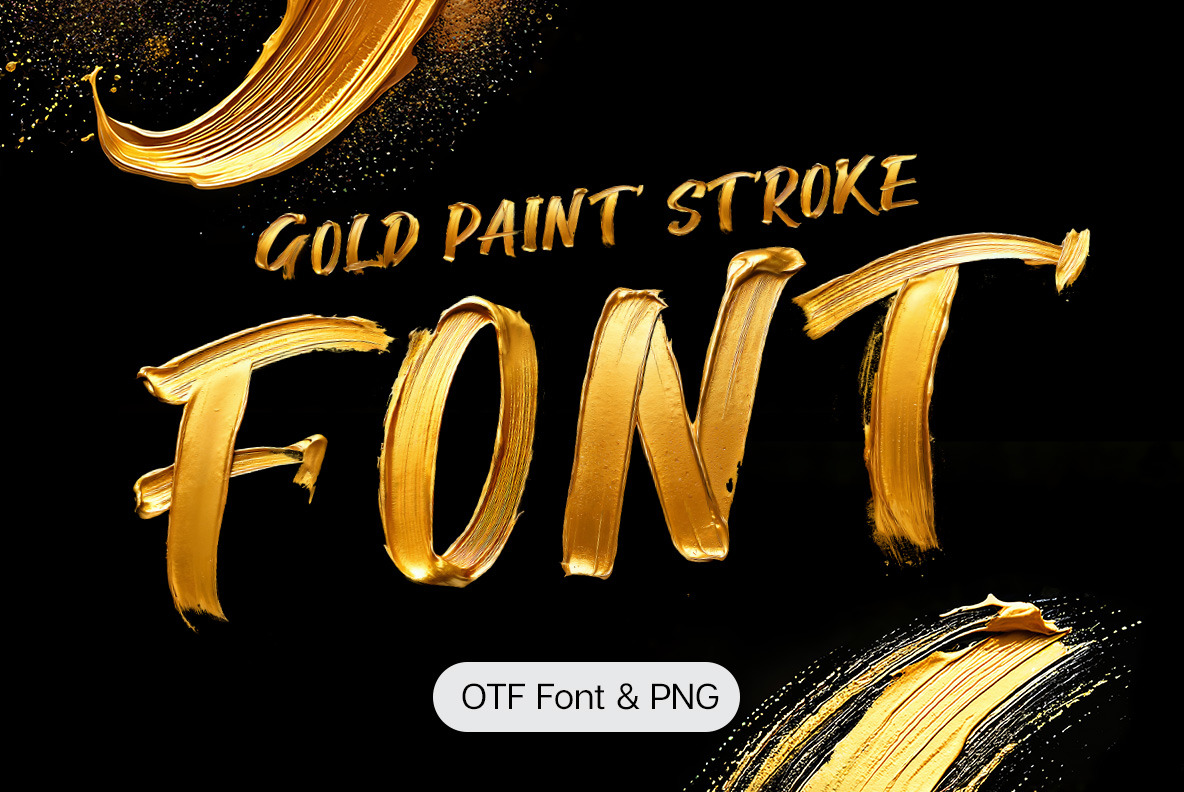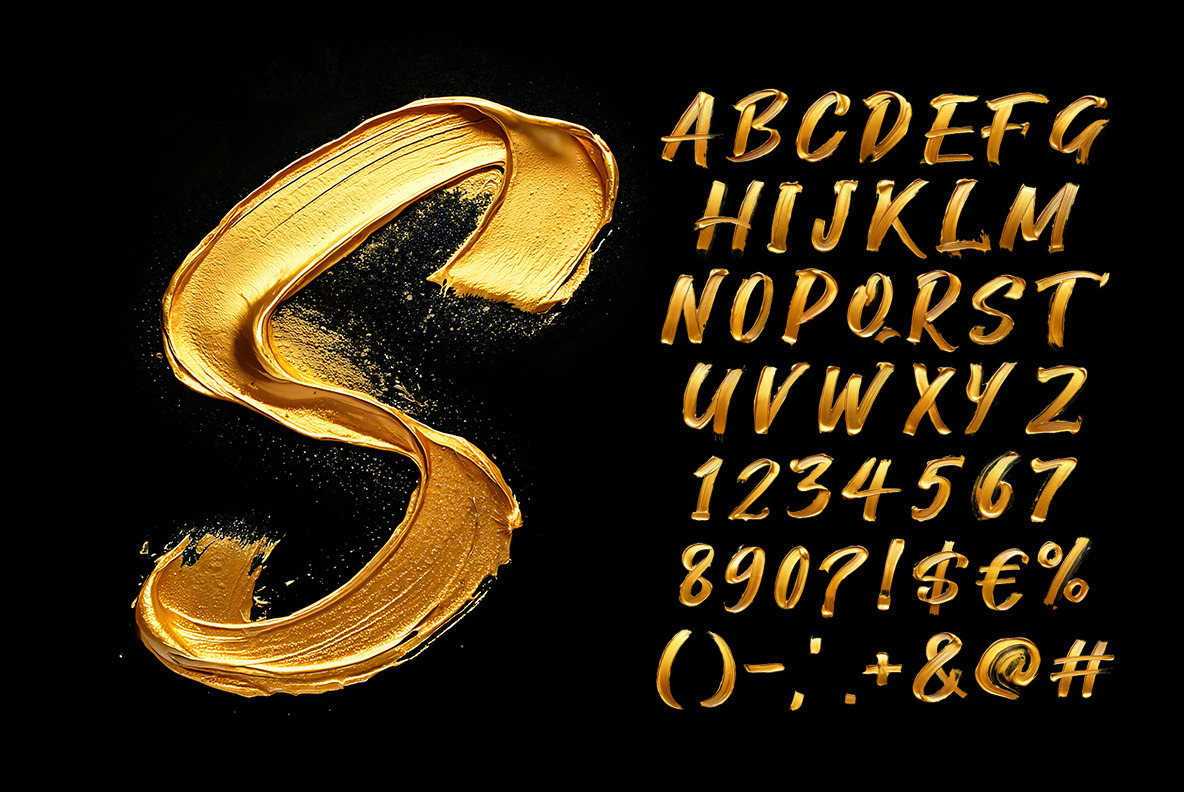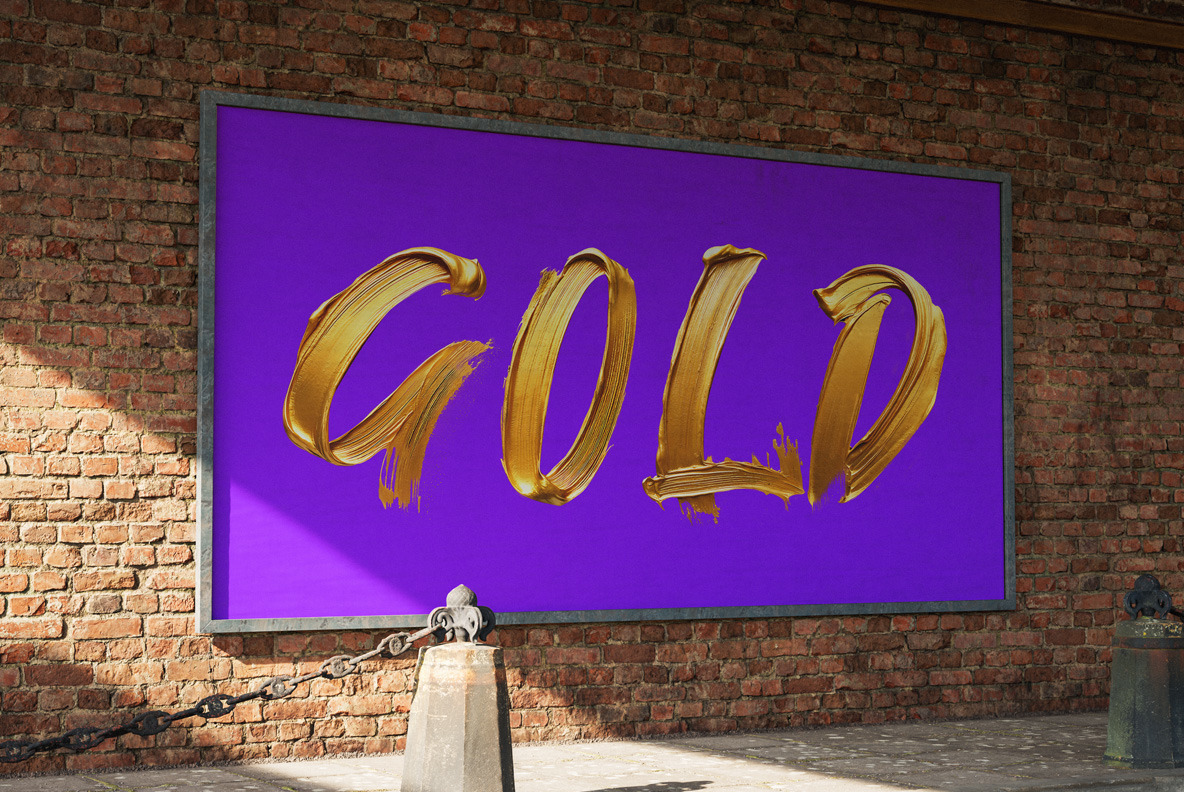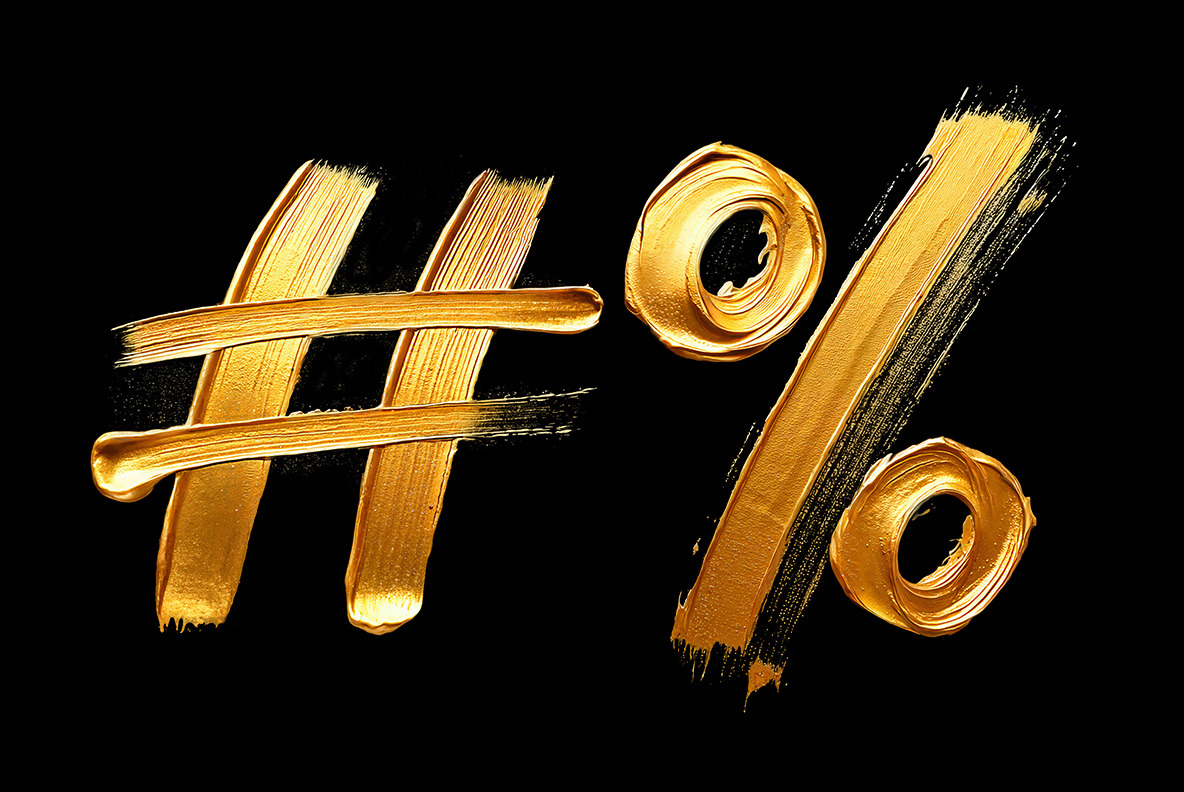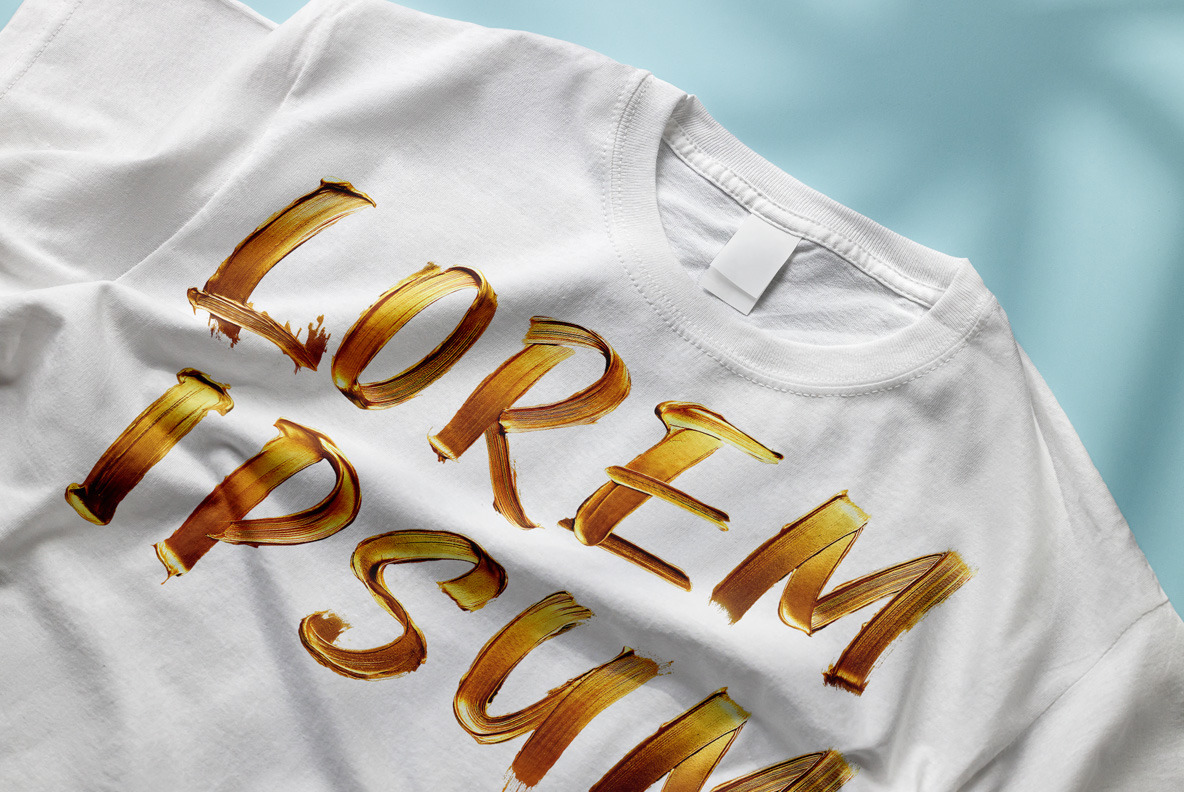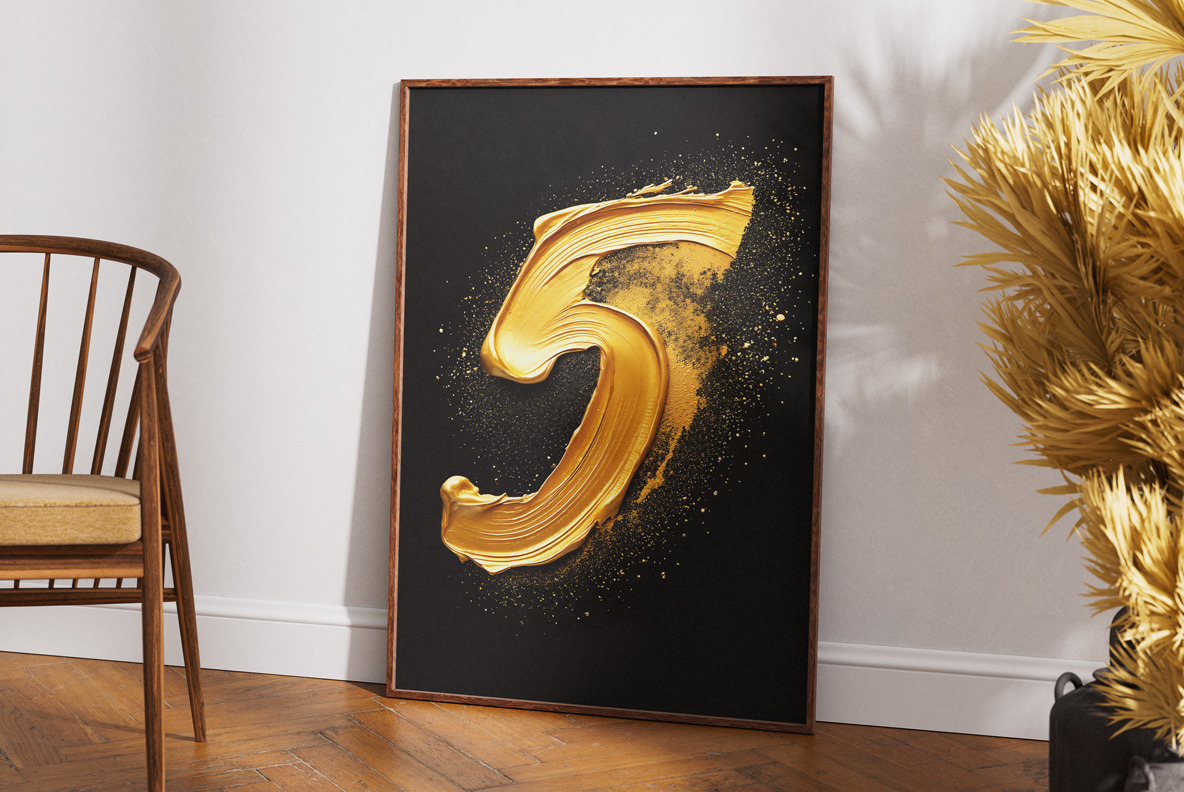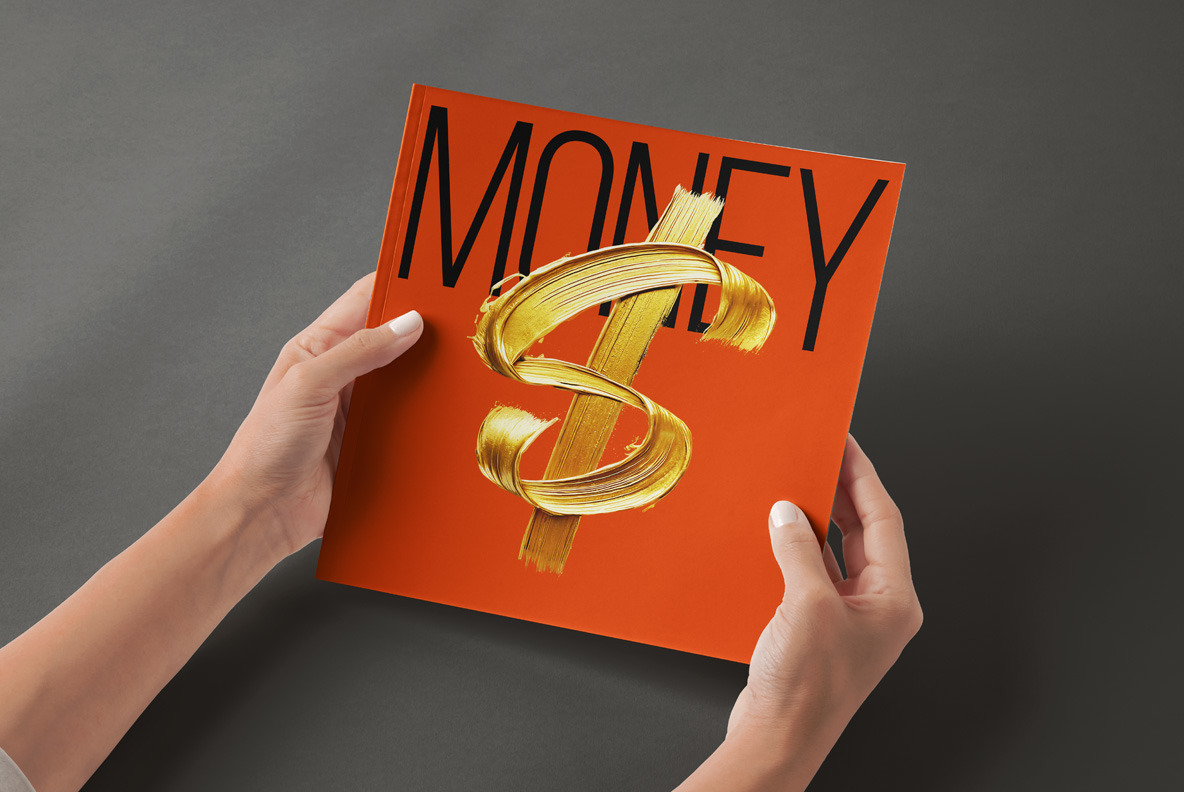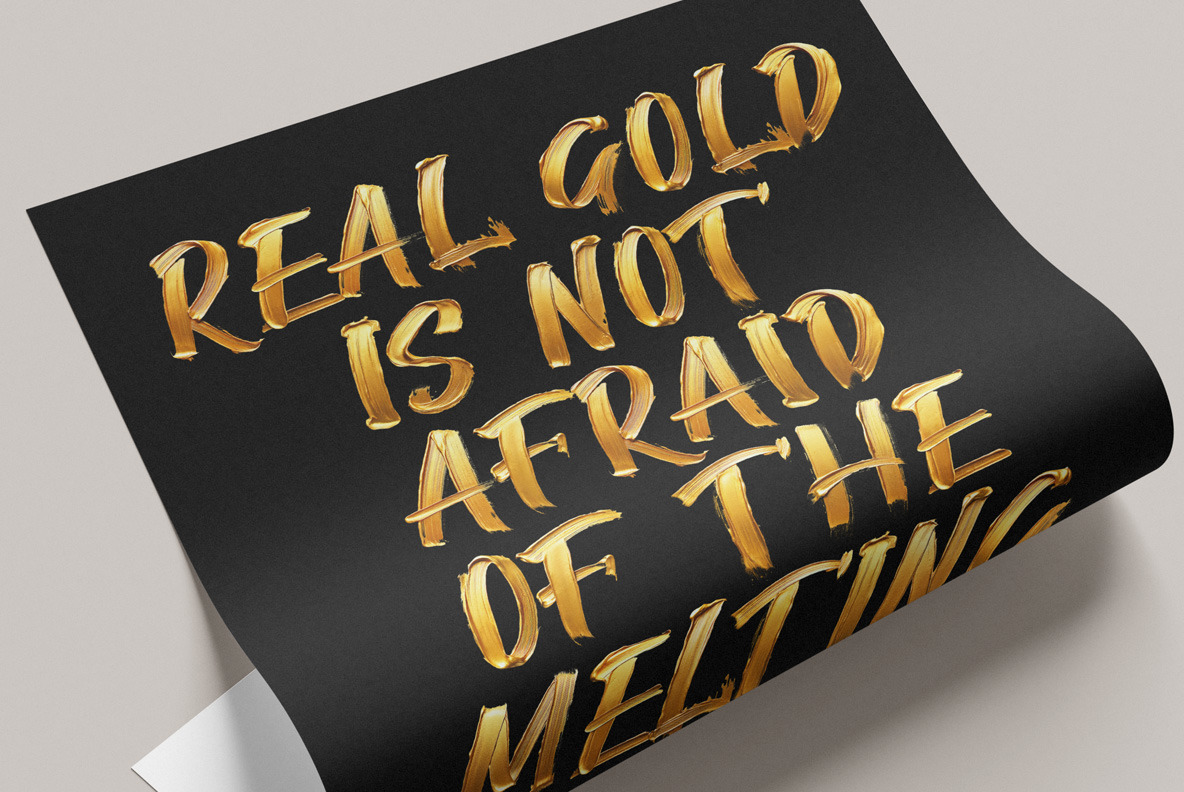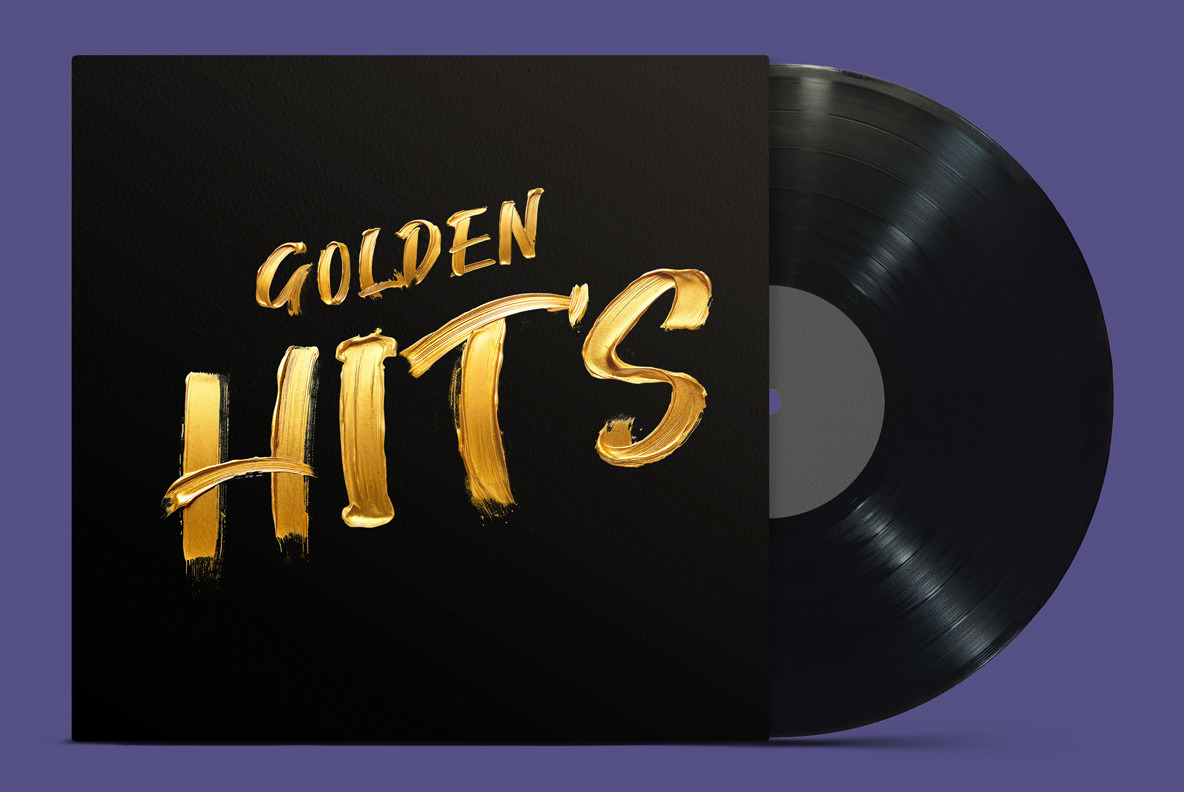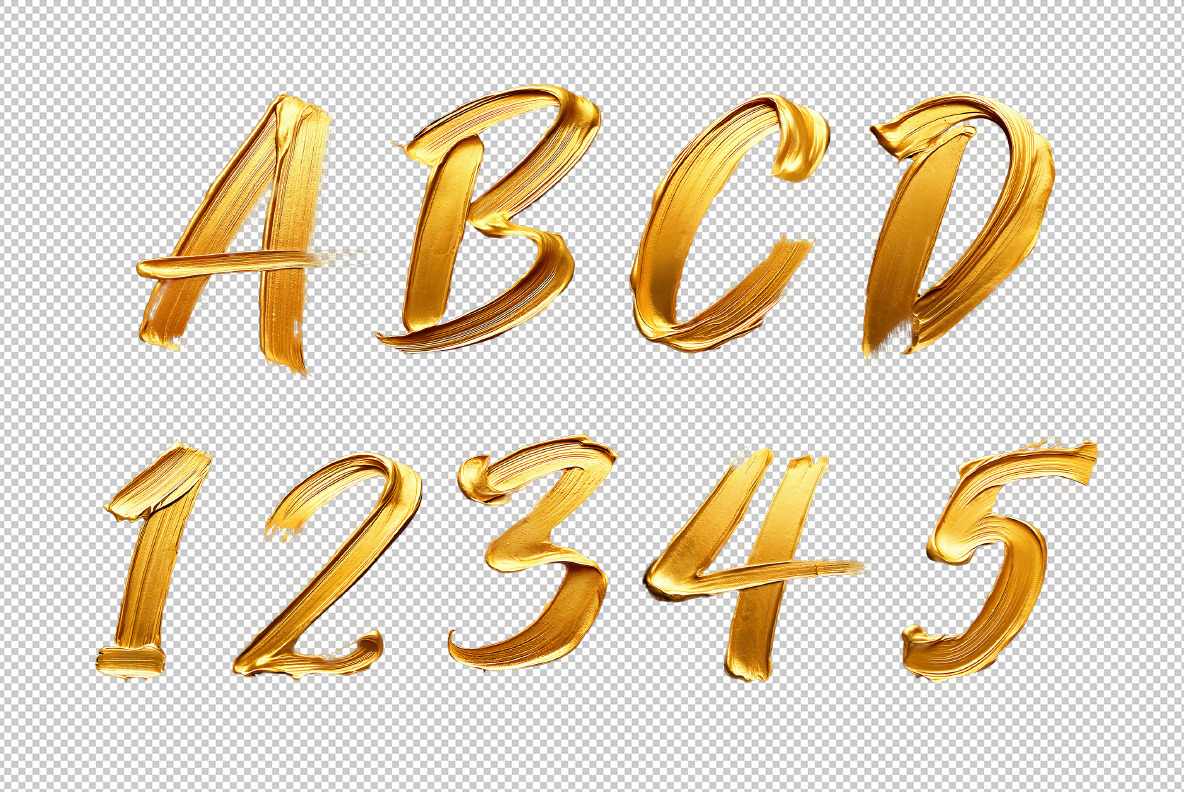
Gold Paint Stroke Font
Unleash luxury in every letter with *Gold Paint Stroke Font*. Each character glistens with the richness of gold, crafted to look like bold, artistic brushstrokes. Perfect for designs that demand elegance and creativity, this high-definition OpenType font adds a touch of glamour to any project. Let your words shine in golden strokes that command attention and radiate sophistication.
A high definition OpenType Font. Contains uppercase characters, numerals and basic punctuation. (Draw height roughly 800 pixels). All letters and glyphs that comprises this font you can see on the preview.